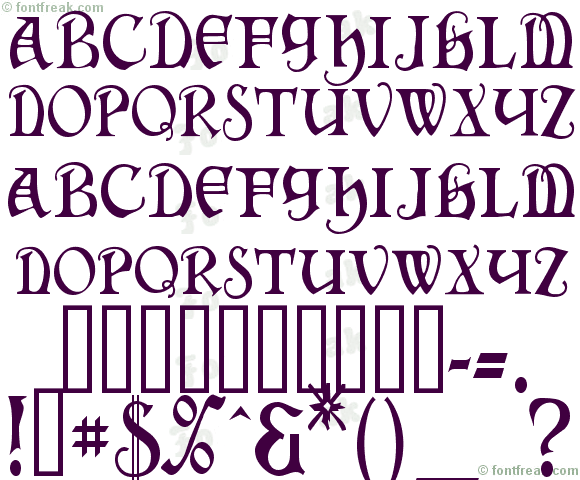
About Hermia
Hermia is a distinctive display font created by The Scriptorium, categorized as a decorative typeface. This font captures attention with its unique character shapes and an artistic flair that sets it apart from conventional typefaces. The stroke weight is varied, lending an organic feel to the letters, while the contrast between thick and thin lines adds depth and visual interest. The spacing is thoughtfully designed to ensure readability, making it an appealing choice for a variety of applications.
One of the standout features of Hermia is its whimsical yet elegant decorative elements, which include playful curves and flourishes that enhance its overall aesthetic. This font is particularly well-suited for creative projects that seek to convey a sense of charm and personality. Ideal use cases for Hermia include wedding invitations, where its romantic styling can add a touch of sophistication; movie posters, where its bold appearance can draw attention; restaurant menus, to create an inviting atmosphere; and branding materials for boutique shops, allowing business owners to showcase their unique identity.
The target audience for Hermia includes graphic designers looking to elevate their projects, small business owners wanting to create memorable branding, and content creators seeking to make a statement in their visual content. With its shareware license, users can easily explore the possibilities of the Hermia font free download, making it accessible for various design needs.
What truly makes Hermia stand out is its ability to blend artistic expression with functionality. Its eye-catching design ensures that any project using this font will not only capture attention but also leave a lasting impression, making it a valuable addition to any designer's toolkit.